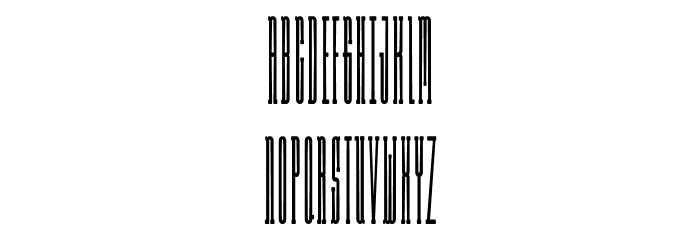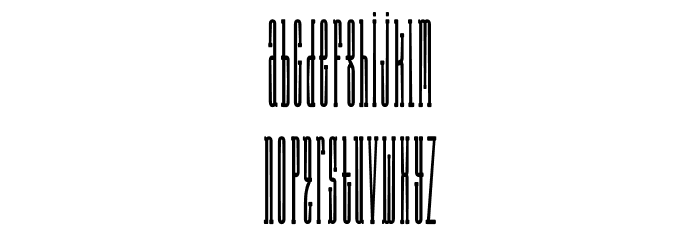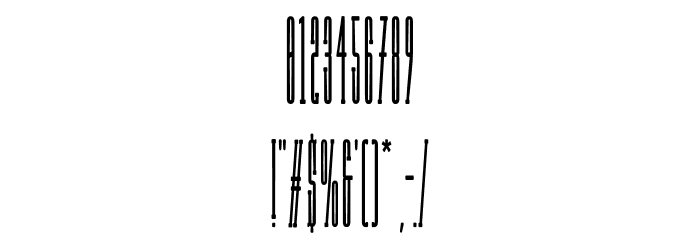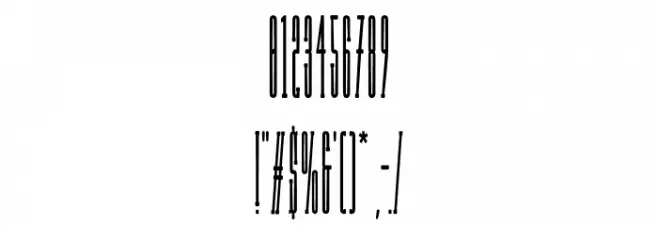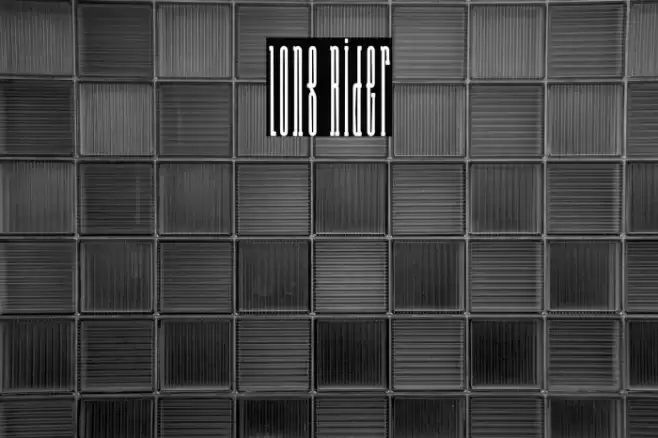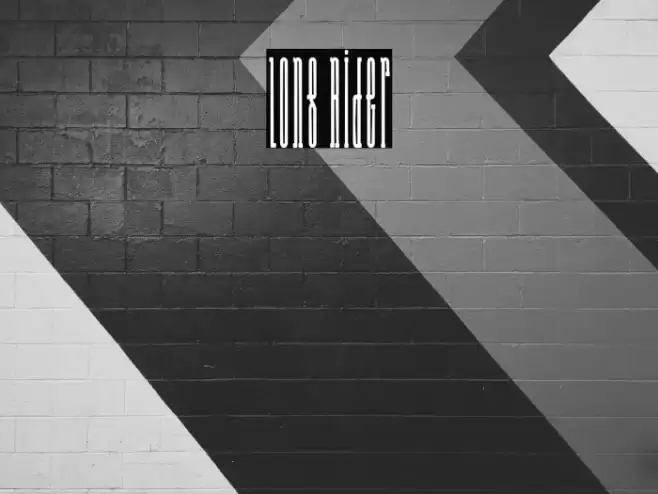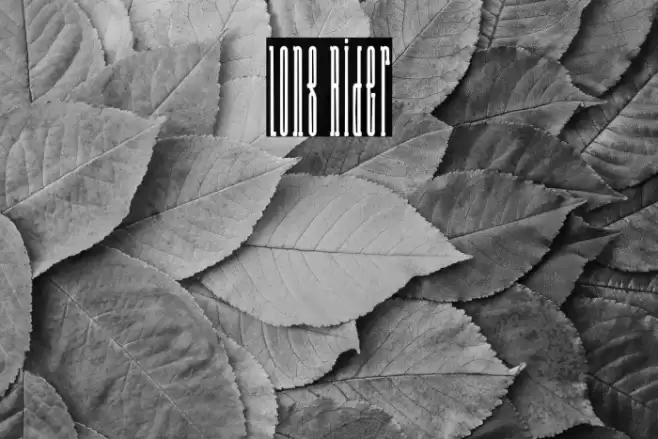
Long Rider Font
This font features an elongated and narrow design, characterized by its tall, slender letterforms. The vertical emphasis is pronounced, giving it a striking and elegant appearance. The strokes are consistent in width, creating a uniform and cohesive look. The characters are tightly spaced, enhancing the condensed style. This font's unique structure makes it stand out, ideal for creating a bold visual impact. The uppercase and lowercase letters maintain a similar height, contributing to its distinctive aesthetic. The numerals and special characters are designed to match the overall style, ensuring a harmonious appearance across all elements.
A tall, narrow font with a striking, elegant design and consistent stroke width.
- Proposed Projects: Ideal for posters, logos, and branding materials where a bold and unique statement is desired.
- Character Spacing: Tight